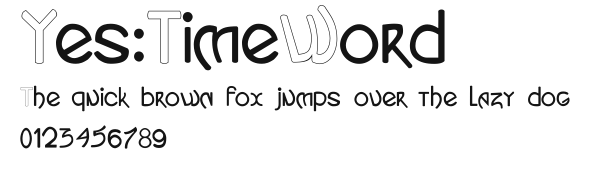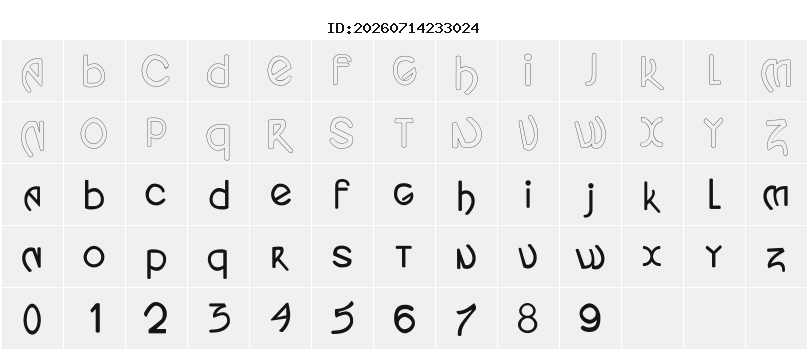
• Copyright: *Freeware* - designed by Dreamfonts©1998 after the text on the Yes CD: Time And A Word.
Yes:TimeWord.ttf is a modern, elegant sans-serif font designed for ultimate readability and visual harmony. Perfect for branding, headlines, web design, and print materials.